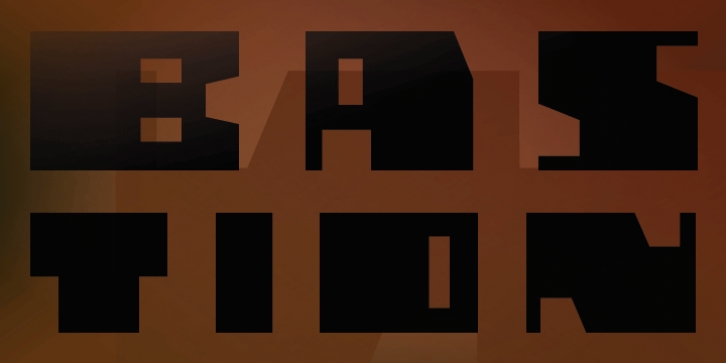
Are you looking for a font? One that makes every single word stand out like a bastion? That’s been the motive for the design of this font, of every single letter.
The font Bastion works at its best if used just for a couple of words, standing by themselves! You can label a subculture brand as well as a very sophisticated space! And don't worry, you won't miss a single character.
The Font is fully developed and serves you no matter what you want to set with it, whether in Latin, Cyrillic, Greek, or Hebrew. Have fun with it and enjoy the possibilities.